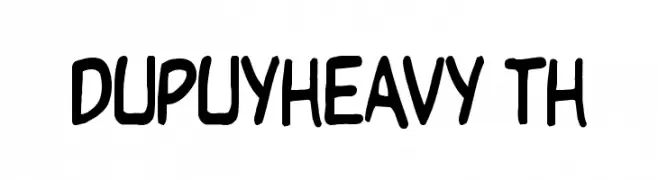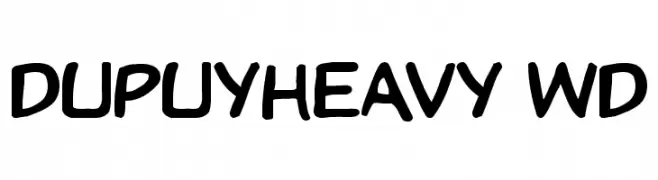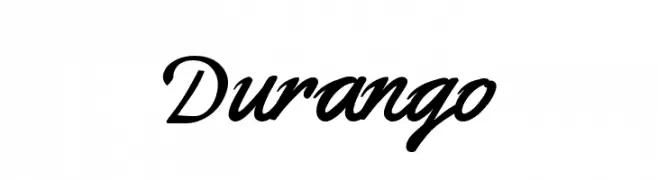
A bold, playful font with thick, rounded strokes and a hand-drawn feel.
A bold, playful font with a hand-drawn, whimsical style.
A bold, playful font with rounded, hand-drawn characters.
A playful handwritten font with irregular strokes and a whimsical appearance.
A modern, geometric font with rounded edges and a playful style.
A dynamic and elegant script font with flowing, cursive letterforms.
A bold, rounded font with uniform strokes and a modern, geometric style.
A bold, rounded, and italic font with a modern and friendly appearance.
A bold, rounded, and italic font with a modern, playful style.